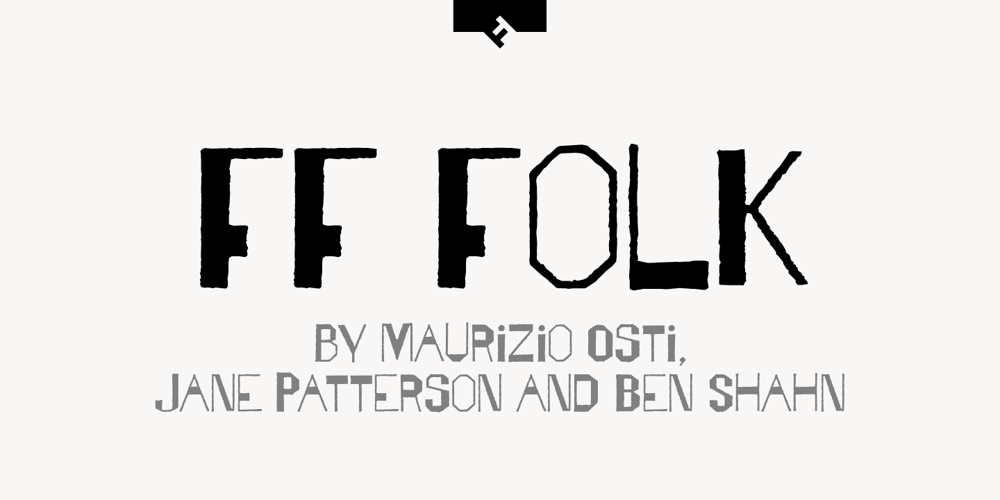
FF Folk
FF Folk font
FF Folk Font Family was designed by Jane Patterson, Maurizio Osti, Ben Shahn and published by FontFont. FF Folk contains 4 styles and family package options. Italian type designer Maurizio Osti and American type designer Jane Patterson created this display FontFont in 2003. The family contains 4 weights and is ideally suited for advertising and packaging, music and nightlife as well as poster and billboards. FF Folk provides advanced typographical support with features such as ligatures, alternate characters, case-sensitive forms, and stylistic alternates.The font was based on the original alphabet created by Ben Shahn in 1940. It comes with proportional lining and tabular lining figures.